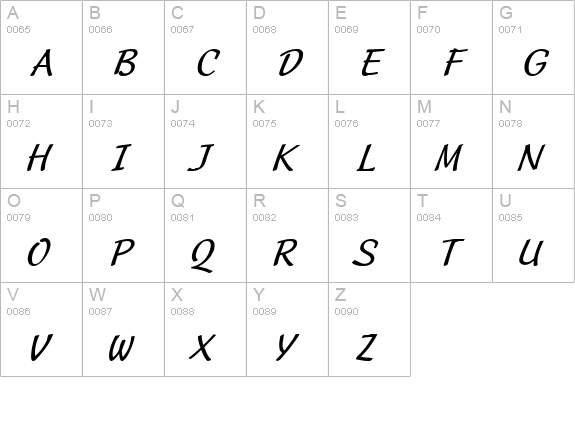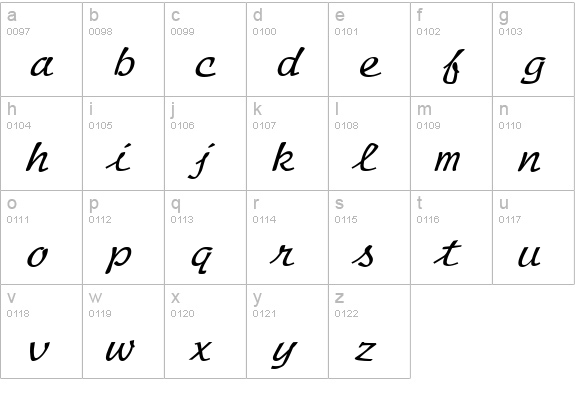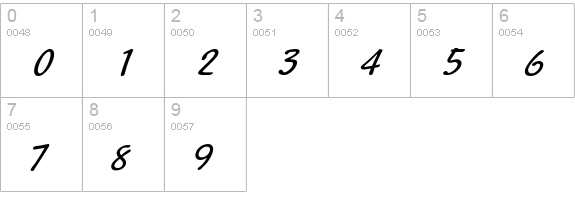
Manuscript Wide Italic is a distinctive, extended-width, italic variant in the Manuscript typeface family \xE2\x80\x94 well suited to design and typography projects.
Introducing Manuscript Wide Italic, a breathtakingly elegant font that effortlessly intertwines sophistication and creativity. The flowing curves and delicate slant of this typeface exude a sense of timeless charm, making it perfect for projects that require a touch of class. Manuscript Wide Italic stands out from the crowd with its unique fluidity and graceful letterforms. Each character is meticulously crafted, allowing for a seamless and harmonious flow of text. Whether used for invitations, branding, or editorial designs, this font adds a touch of refinement that captivates the eye and engages the reader. What sets Manuscript Wide Italic apart is that it is not only visually stunning, but it is also freely available to download at FontsMarket.com. This means that designers and creatives can explore the endless possibilities of this font without any constraints. Whether you are working on personal projects or professional endeavors, Manuscript Wide Italic offers a world of creative freedom at your fingertips. With its versatility, Manuscript Wide Italic adapts effortlessly to a wide range of design contexts. From elegant wedding invitations to luxurious fashion editorials, from prestigious corporate branding to sophisticated book covers, this font has the ability to elevate any project to new heights of visual excellence. So, why settle for ordinary when you can embrace the extraordinary? Download Manuscript Wide Italic today and unlock a world of beautiful typography that is not only visually stunning but also free. Experience the power of this font and let your creativity soar as you bring your designs to life with elegance and finesse.